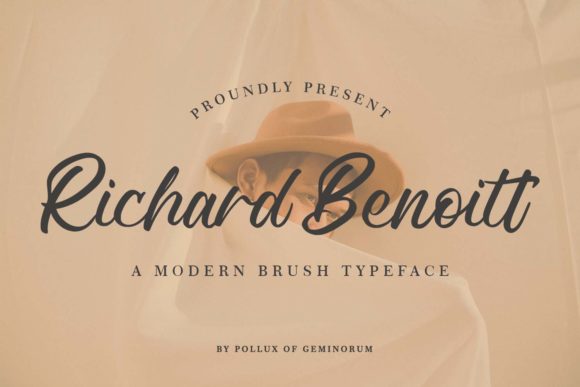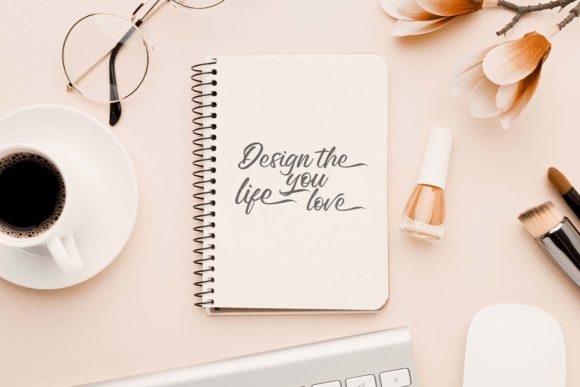
About Richard Benoitt Font
Richard Benoitt is a charming and elegant handwritten font that exudes sophistication and grace. Its versatile nature makes it a perfect fit for a wide array of design projects, adding a touch of refinement to any creation. Let’s explore how Richard Benoitt font can elevate various design contexts:
1. Wedding Invitations: Design timeless and exquisite wedding invitations using Richard Benoitt font, setting the stage for a luxurious celebration.
2. Thank You Cards: Create heartfelt and elegant thank you cards that express gratitude with a touch of class using Richard Benoitt font.
3. Quotes and Greeting Cards: Craft beautiful and meaningful quotes and greeting cards with Richard Benoitt font, leaving a lasting impression on the recipients.
4. Logos and Branding: Establish a sophisticated and memorable brand identity with a handwritten touch by incorporating Richard Benoitt font into your logos and branding materials.
5. Business Cards: Add a touch of elegance to your business cards with Richard Benoitt font, making a strong and lasting impression on potential clients.
6. Social Media Graphics: Elevate your social media presence with sophisticated and visually appealing graphics featuring Richard Benoitt font.
7. Stationery Art: Create stunning stationery art and letterheads with Richard Benoitt font, showcasing professionalism and elegance.
8. Book Titles and Covers: Design captivating book titles and covers with Richard Benoitt font, drawing readers in with its refined appeal.
9. Personal Branding: Use Richard Benoitt font for personal branding, such as signatures and watermarks, to add an element of individuality and grace.
10. Artistic Projects: Incorporate Richard Benoitt font into artistic projects like calligraphy pieces and illustrations to add a touch of elegance.
11. Packaging Design: Elevate product packaging with Richard Benoitt font, making products appear sophisticated and high-end.
12. Event Invitations: Design invitations for special events, such as gala dinners and upscale gatherings, using Richard Benoitt font for an elegant touch.
Richard Benoitt font’s varying baseline, smooth lines, and stunning alternates give it a unique and enchanting quality, making it ideal for designs that require a touch of luxury and sophistication. Whether used for formal occasions, branding, or artistic projects, Richard Benoitt font will surely leave a lasting impression with its charming and elegant demeanor. Embrace the versatility of this font and enjoy its ability to elevate a wide range of design projects with ease.